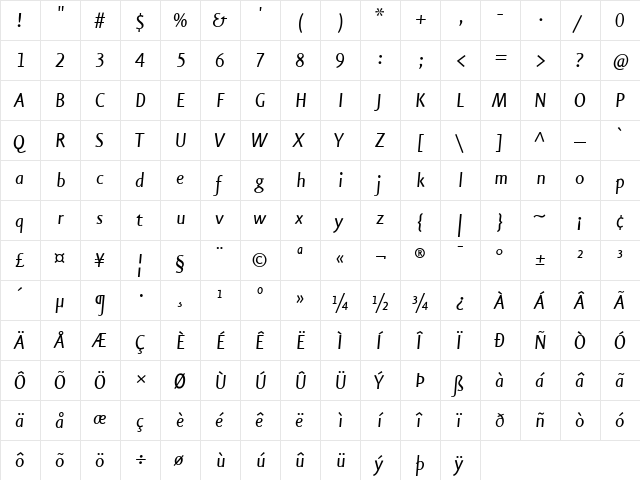
EurekaSans-RegularItalic Regular
| Foundry | Peter Bilak, published by FontShop International for the FontFont library |
Design Context for EurekaSans-RegularItalic Typeface
EurekaSans-RegularItalic offers clean, dependable letterforms without strong stylistic allegiance, making it a practical choice for designers who need flexibility. Its italic angle brings a sense of urgency and motion to the letterforms.